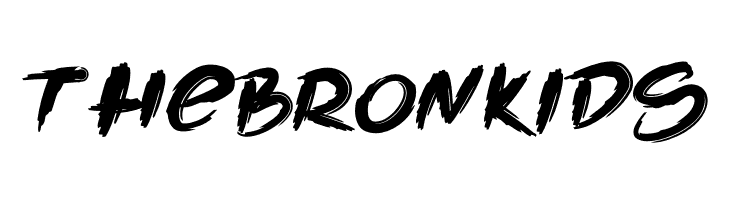
A playful, cartoon-style font with children holding letter blocks.
( Fonts by Manfred Klein - manfred-klein.ina-mar.com )
A whimsical, cartoon-style font featuring playful illustrations perfect for children's projects.
( Fonts by www.houseoflime.com )
A playful collection of cartoon-like illustrations for children.
( Fonts by or from www.graffitifonts.net )
A playful, handwritten font with a childlike charm and bold strokes.
A whimsical, cartoon-like font with playful, exaggerated characters.